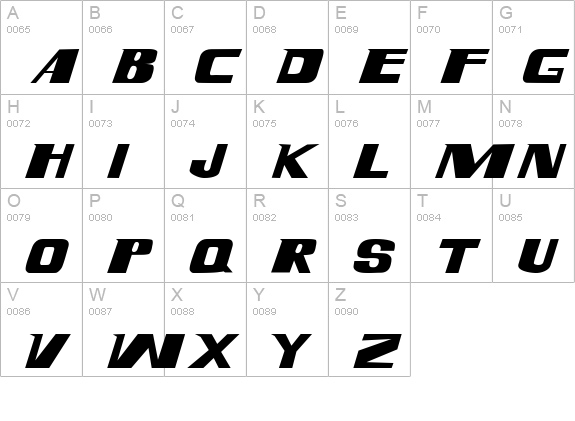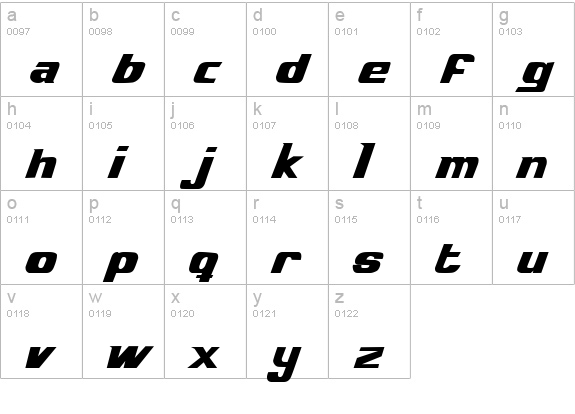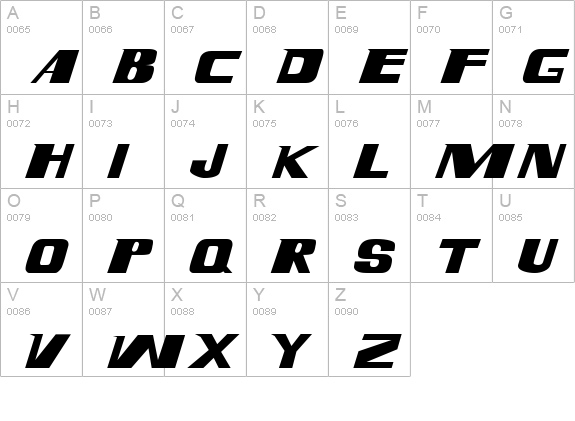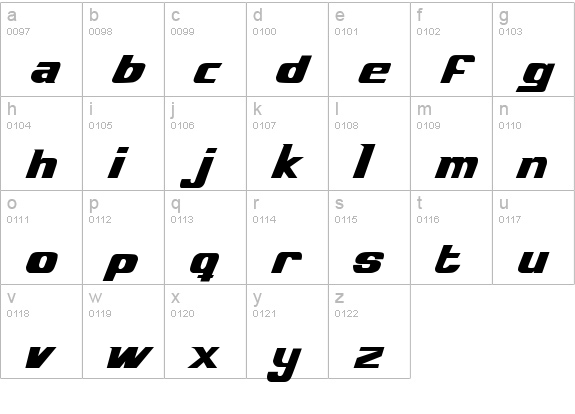
Magnump.i. Font Details
Introducing Magnump.i., the ultimate font for all your design needs. With its sleek and modern design, Magnump.i. is perfect for adding a touch of sophistication to any project. Whether you're creating a stunning logo, designing a beautiful poster, or crafting an eye-catching website, this font is sure to impress. But what sets Magnump.i. apart from the rest is that it's not just any font – it's free! That's right, you can download Magnump.i. completely free of charge at FontsMarket.com. We believe that great design should be accessible to everyone, and that's why we're offering this incredible font at no cost to you. With its clean lines and sharp edges, Magnump.i. exudes a sense of professionalism and elegance. Its versatility allows it to be used in a variety of settings, from corporate branding to personal projects. No matter the occasion, Magnump.i. will elevate your design to the next level. The attention to detail in Magnump.i. is truly remarkable. Each letter is meticulously crafted to create a harmonious balance between form and function. The spacing and kerning have been carefully adjusted to ensure legibility and readability, even at small sizes. Whether you're a seasoned designer or just starting out, Magnump.i. is a must-have addition to your font collection. Its bold and impactful presence will make a lasting impression on your audience. So why wait? Head over to FontsMarket.com and download Magnump.i. for free today!